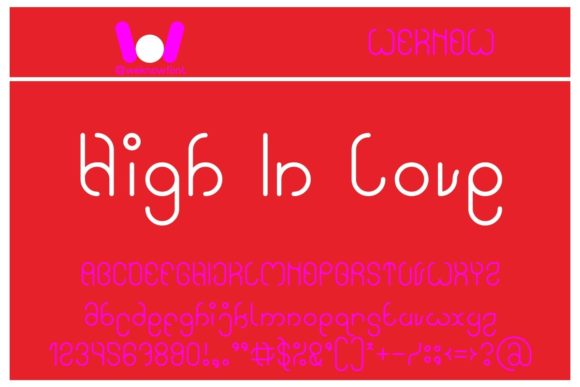
Introducing High in Love, the captivating display font that will elevate your designs to new heights! With its enchanting curves and playful strokes, this whimsical font is the perfect choice for adding a touch of magic to your website headers and leaving a lasting impression on your visitors.
Whether you're crafting a captivating logo that demands attention or creating eye-catching social media graphics that will make your brand shine, High in Love is the font you need. Its versatility knows no bounds, making it suitable for a wide range of projects. Unleash your creativity and watch as this font transforms your designs into works of art that will captivate and inspire.
So why settle for ordinary fonts when you can experience the extraordinary with High in Love? Let this delightful font ignite your imagination and transport you to a world where design dreams take flight. Embrace the whimsical charm of High in Love and watch as your creations soar to new heights of style and elegance.
High in Love: The font that will make your designs sing!